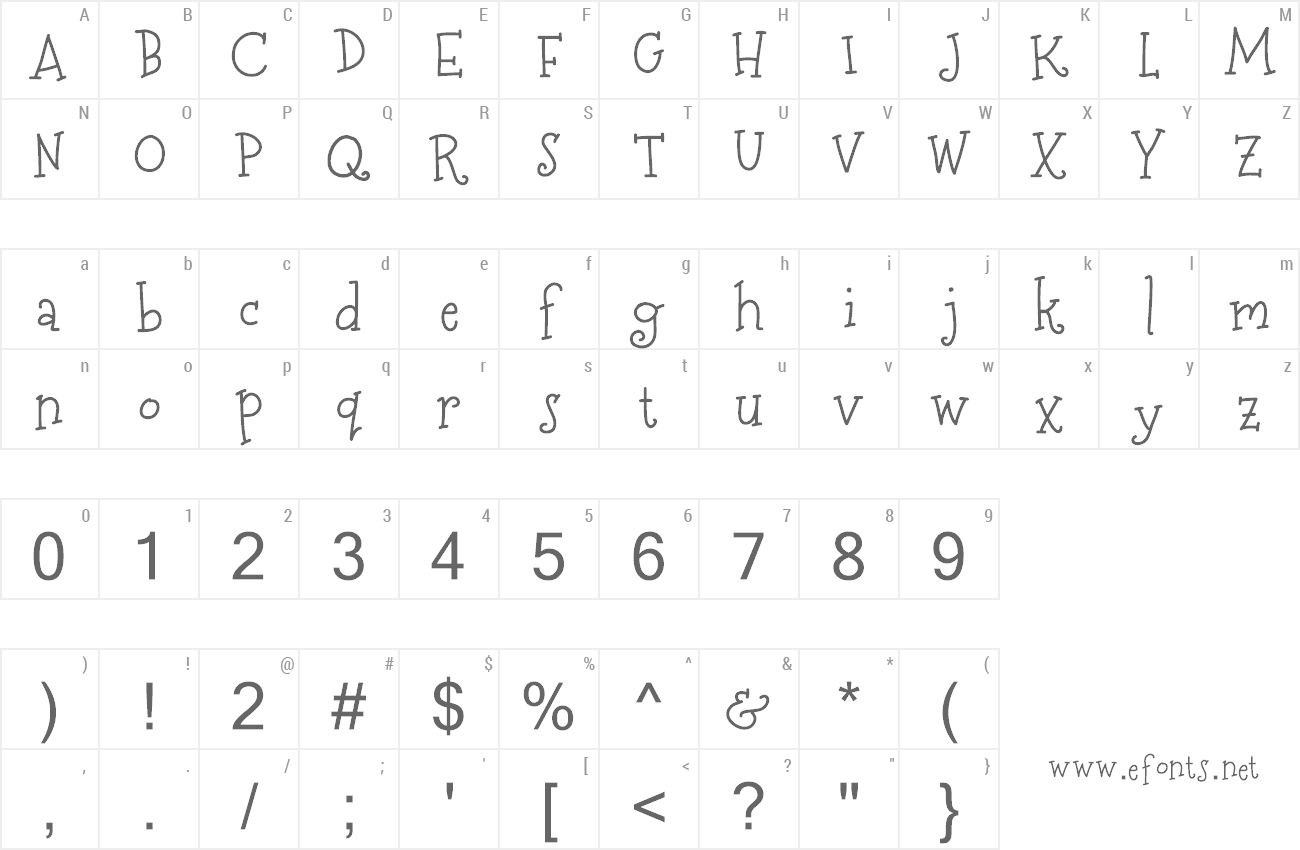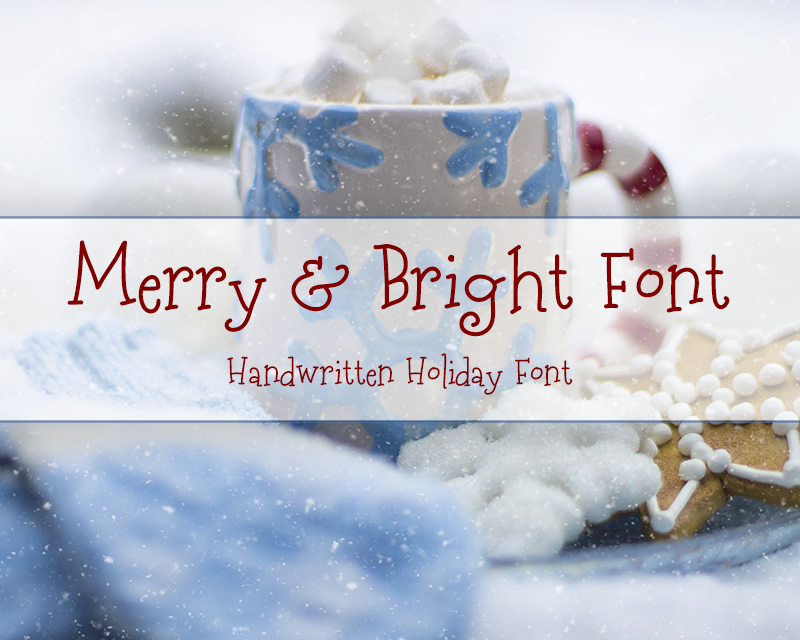
| Font name: | Merry N Bright |
| Author: | Typographique |
"Merry & Bright" Font - This is a DEMO version. The FULL VERSION (which includes numbers, punctuation & Commercial Use License) can be purchased here: https://sellfy.com/p/CeSP/ This handwritten font is great for making greeting cards, kid's crafts, invitations, holiday crafts and more. Demo version is for personal use only. |